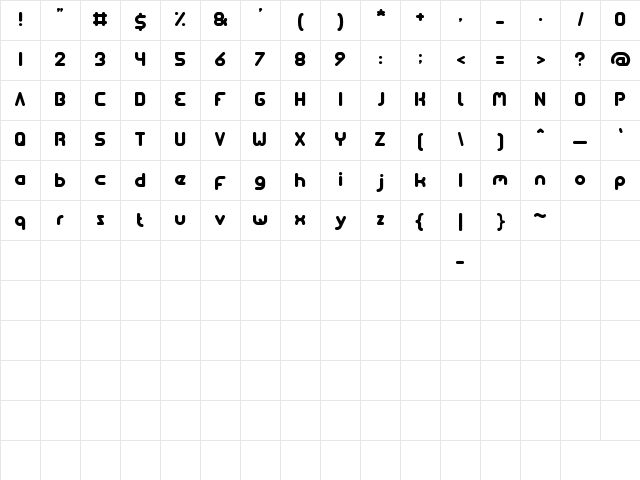
soulmate Regular Free Font
soulmate Regular
Design Context for soulmate
soulmate is a composed and adaptable typeface that performs quietly and consistently across a wide range of design contexts.